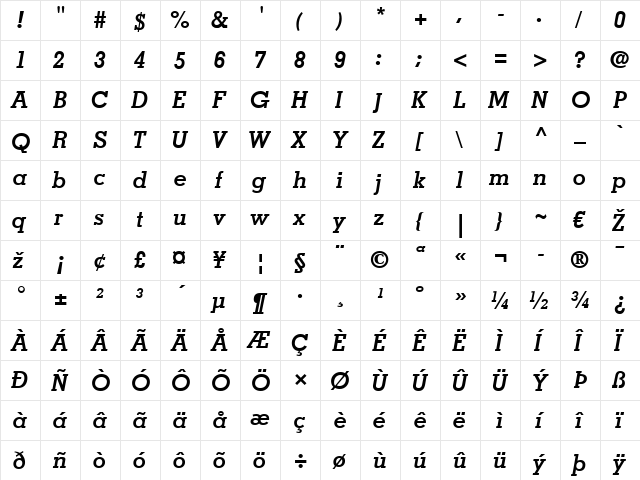
Memphis LT Medium Bold Italic
Design Context for Memphis LT Medium Typeface
Memphis LT Medium is a composed and adaptable typeface that performs quietly and consistently across a wide range of design contexts. The slanted form adds forward momentum and visual energy. The heavy weight commands attention and anchors typographic hierarchies.
Pro Tip: Use Memphis LT Medium for emphasis, pull quotes, and subheadings where its slanted energy can add rhythm to the layout.